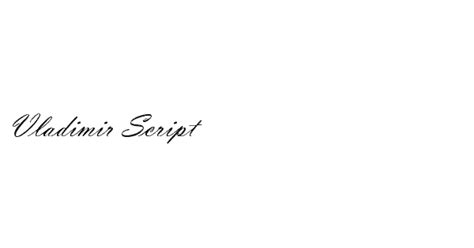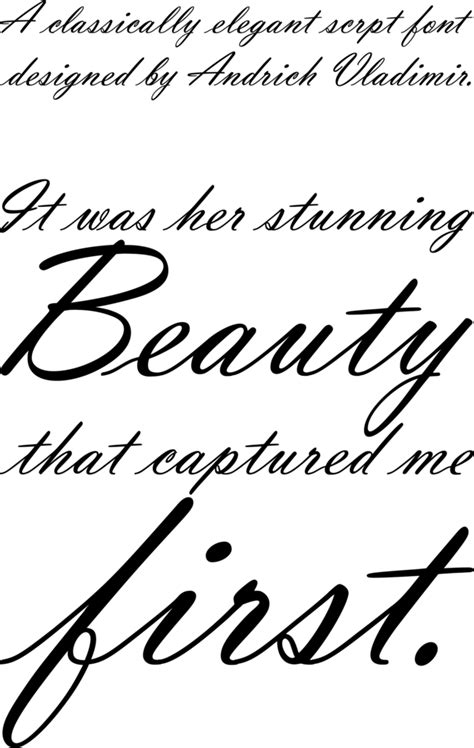
Urw software, copyright (c) 1995 by urw. Many of the letters' strokes end in looped terminals. Before installing the vladimir script font in os x, you must first completely close all applications. Buy vladimir script font from itc on fonts.com. Copyright (c) 1995 microsoft corporation.
Urw software, copyright (c) 1995 by urw. Vladimir script font custom preview tool. Enter some text in the box below, then click the preview button. Download vladimir script font free! Many of the letters' strokes end in looped terminals. Vladimir script full font name: Vladimir script font is a script modern style font. Vladimir script is available as a desktop font and a web font. Vladimir script font was designed by andrich vladimir. The letters have a steep slant, and the uppercase letters and the numbers are rather informal. Andrevich vladimir and vladimir andrevich. Search similar to vladimir script typeface in fonts with getty fonts. Archive of freely downloadable fonts.